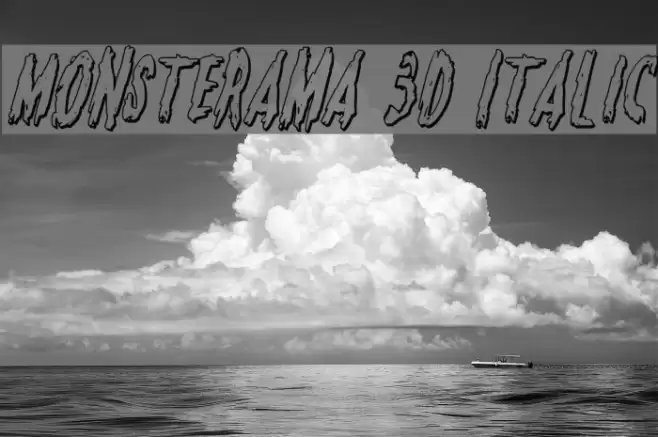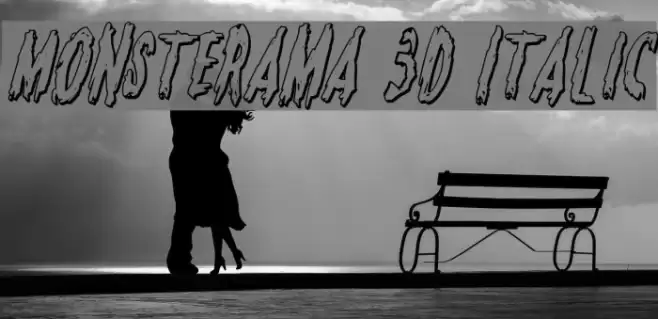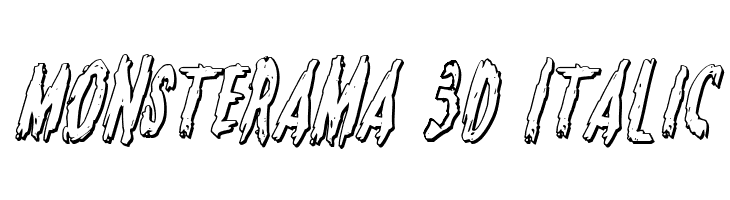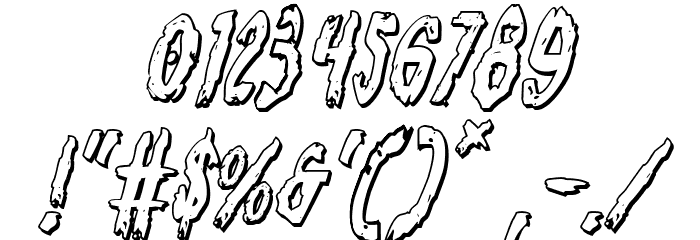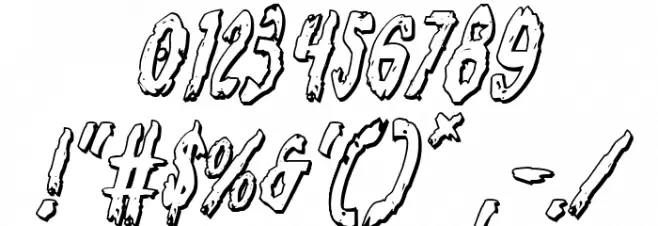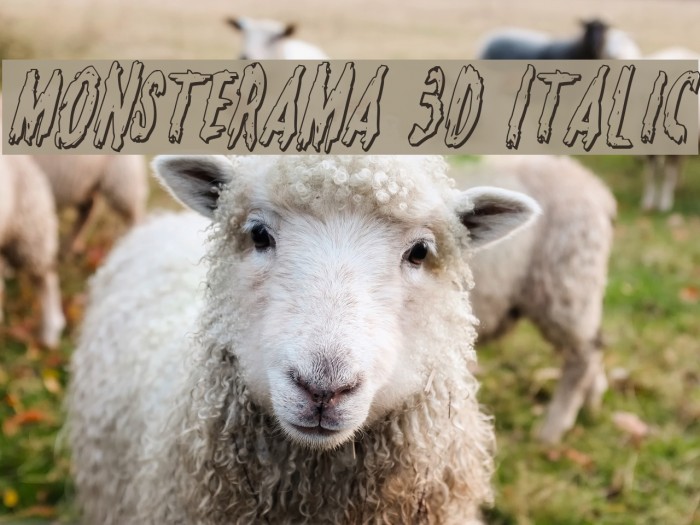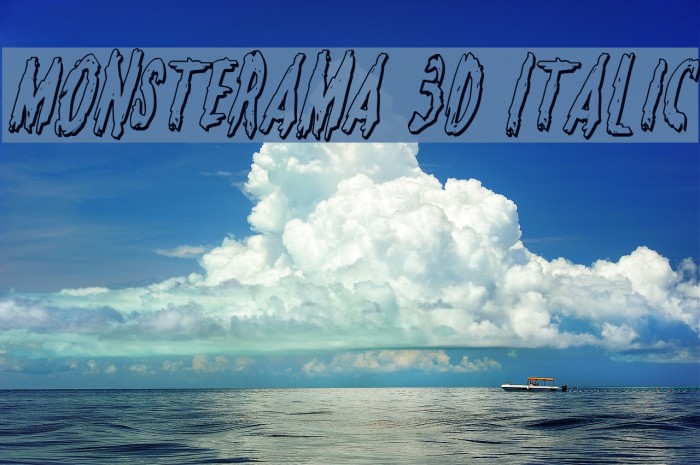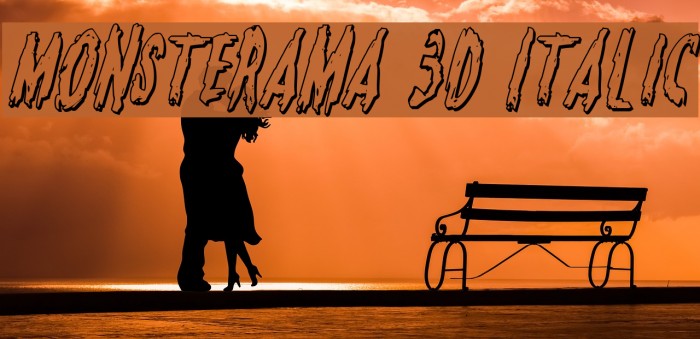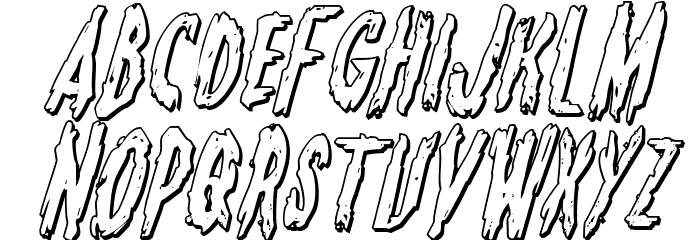
Monsterama 3D Italic Font
Monsterama 3D Italic Description
This font features a bold, three-dimensional appearance with a rugged, textured surface that gives it a dynamic and energetic feel. The letters are slightly slanted, emphasizing the italic style, and have a playful, cartoonish quality. The edges are irregular and jagged, adding to the font's unique and eye-catching design. This style is reminiscent of comic book titles or horror-themed graphics, making it ideal for projects that require a bold and adventurous look. The font maintains consistent spacing between characters, allowing for readability despite its decorative nature.
A bold, 3D italic font with a rugged, textured appearance and playful style from Uncategorized fonts.
- Proposed Projects: Ideal for comic book titles, horror-themed graphics, posters, and video game designs.